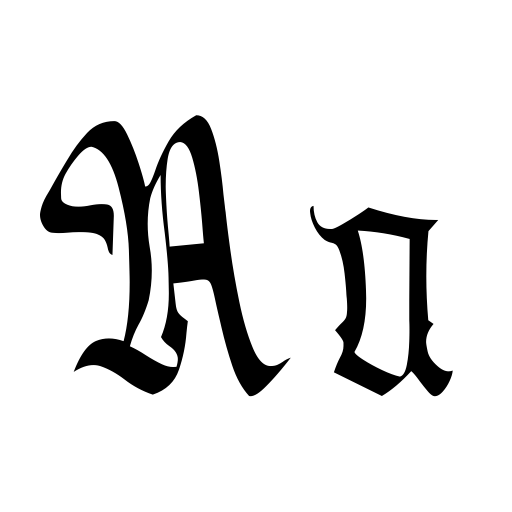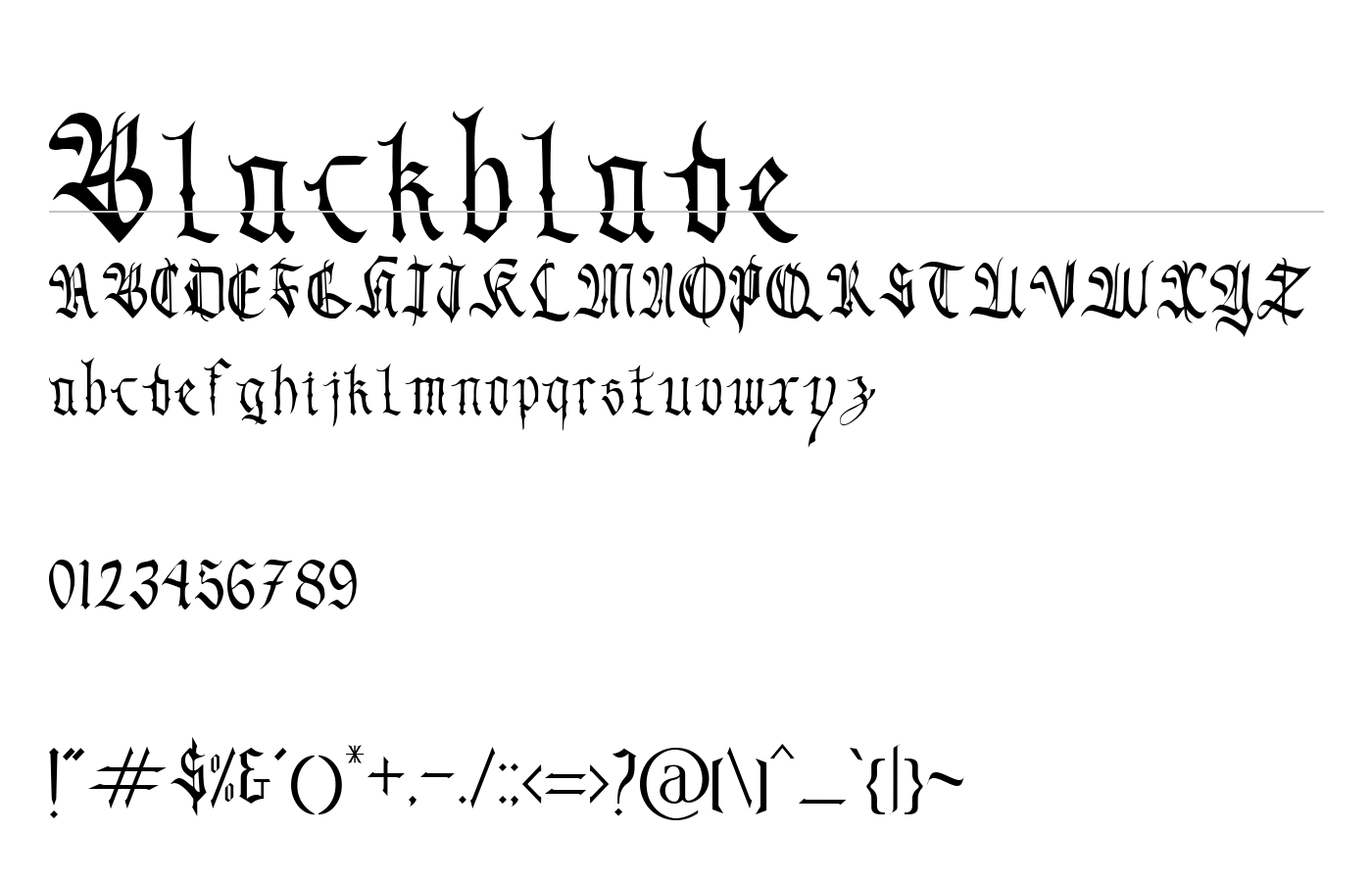
Blackblade is a striking blackletter serif font with sharp, angular strokes and a high contrast between thick and thin lines, evoking a historic Gothic calligraphy style. Its dramatic, ornamental letterforms create a bold, vintage, and somewhat mysterious atmosphere, making it ideal for logos, headlines, or branding that needs an old-world, medieval flair. This font works best in eye-catching titles or packaging where its intricate design can stand out without losing readability.
Blackblade Font
About Blackblade Font